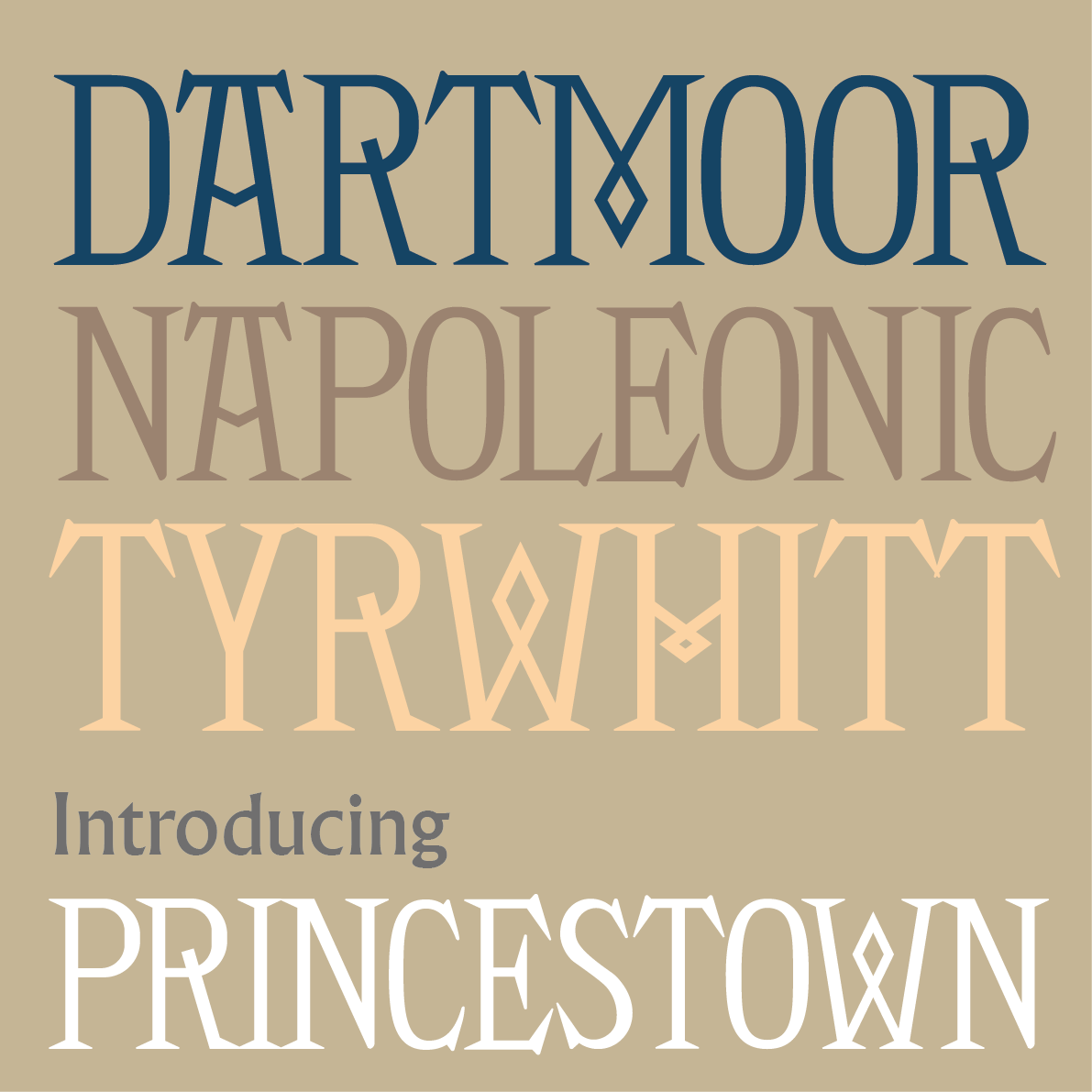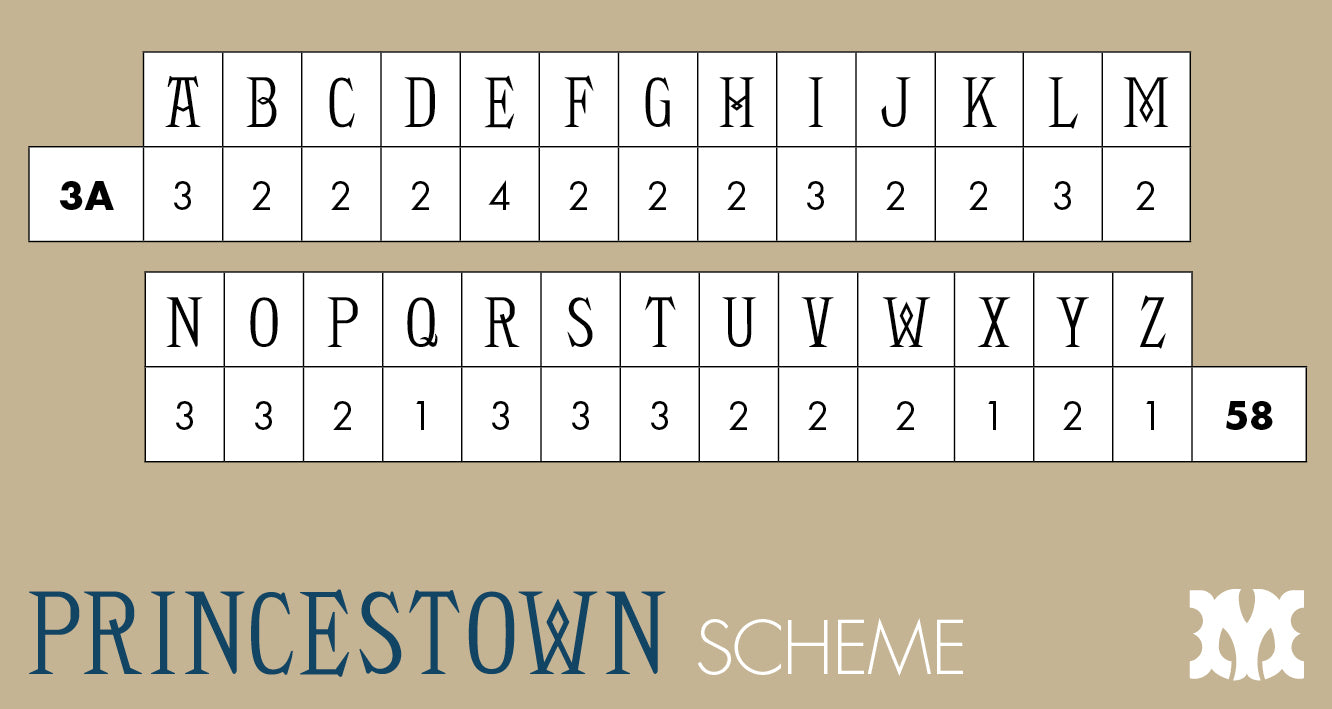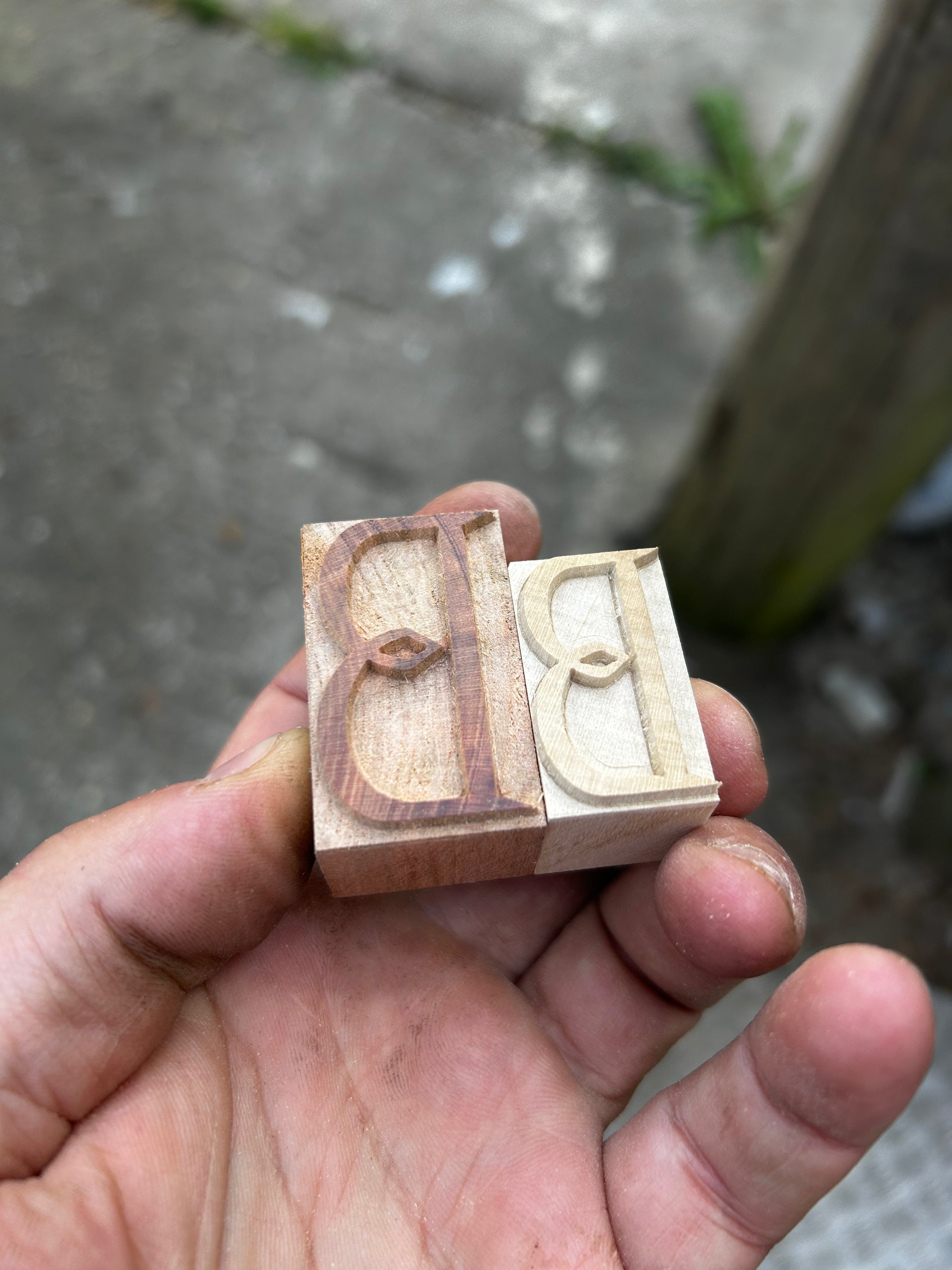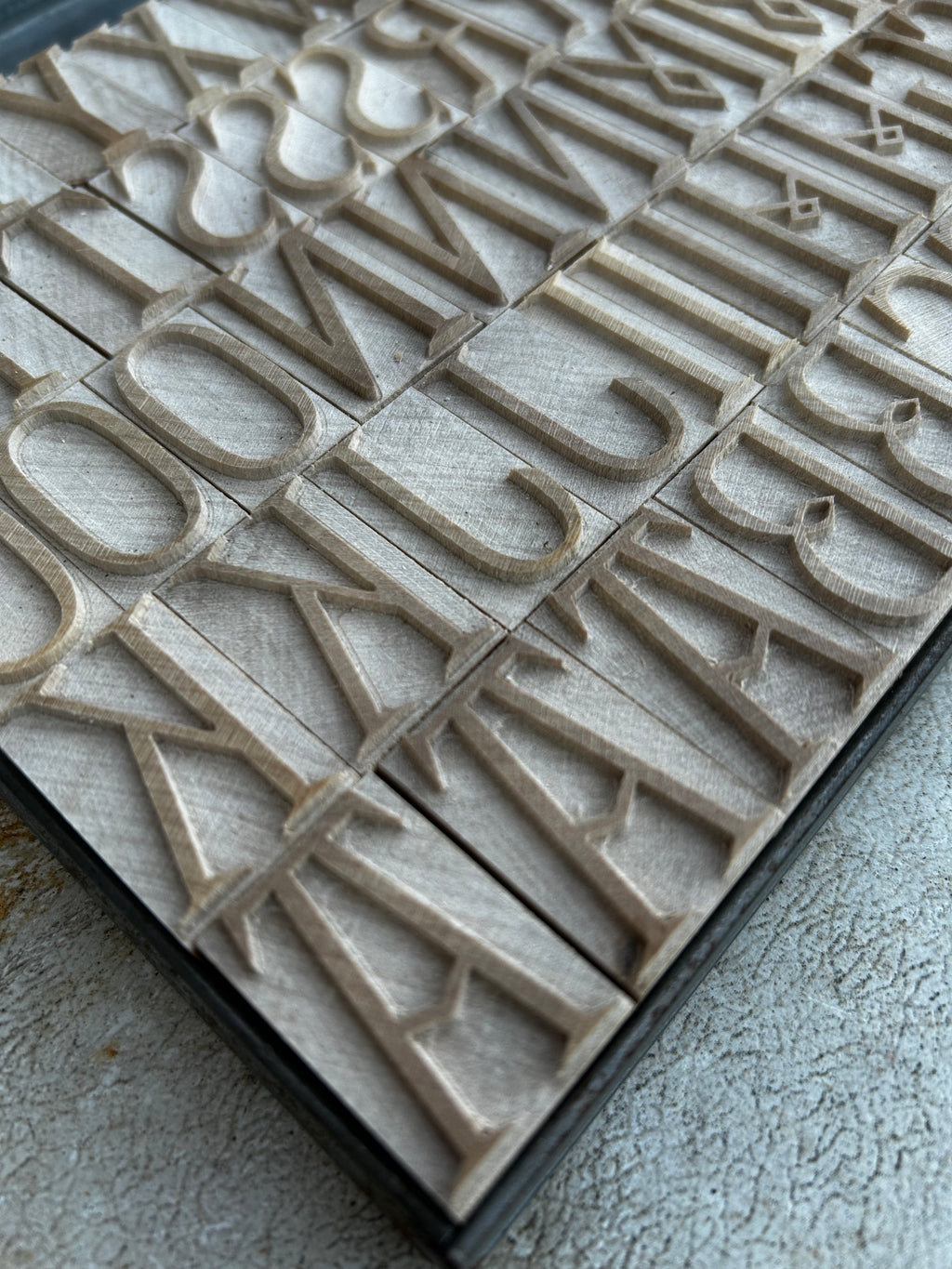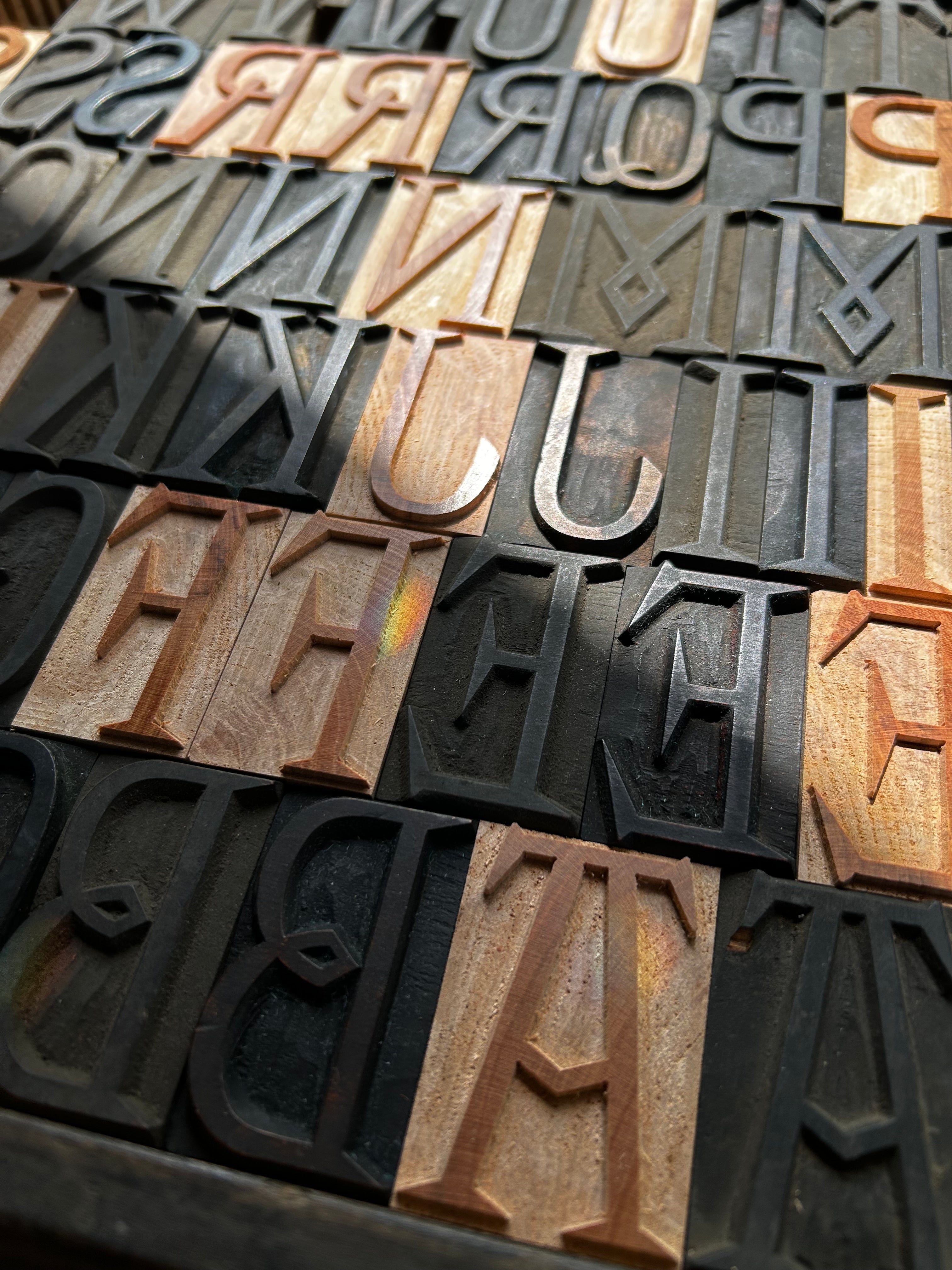
'Princestown' letterpress woodtype typeface
Princestown is a ornamented display typeface, redrawn by Mark McKellier from a 150+ year hand carved original from Princetown Press in Dartmoor.
12 line (67.7mm), 10 line (42.3mm), 8 line (33.8mm) versions cut from end grain hardwood using a combination of modern CNC technology and traditional hand woodworking tools (including an original printers saw), made to English type-high (0.918in or 23.3mm) within plus or minus 0.1mm tolerance, sealed with shellac and hand finished with a traditional polished printing surface.
Available as a 3A capitals (58 blocks) scheme. Please see scheme details on the right.
Endgrain hardwood, clear shellac.
Each block varies in width however average size is 38 x 23.3 x 50.8mm for 12 line.